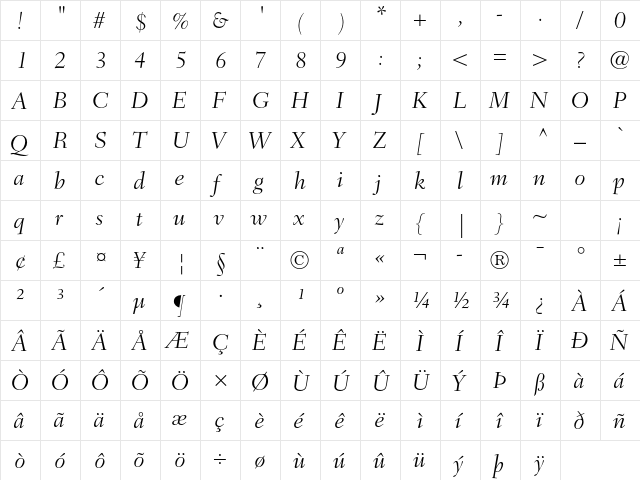
Fairfield LT Std 46 Light Italic Font Preview
| Designer | Rudolph Ruzicka, Alex Kaczun |
Design Context for Fairfield LT Std Typeface
Fairfield LT Std takes a measured approach to typography — its balanced proportions and neutral character make it a reliable workhorse for both digital and print work. The dynamic lean of this cut emphasises speed and emphasis in any layout. The delicate stroke weight brings airiness and refinement to layouts.